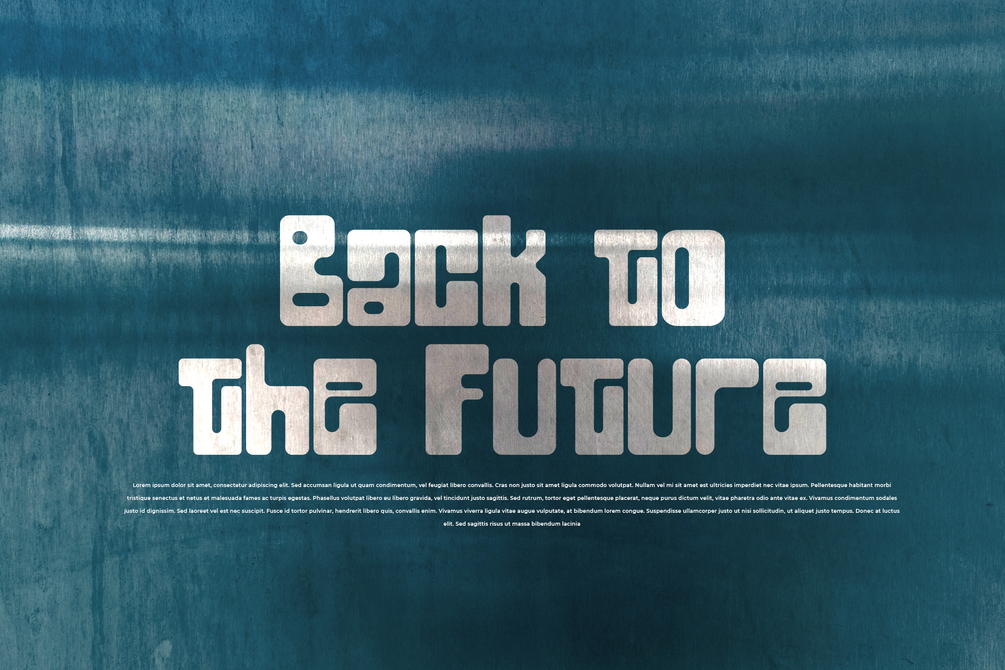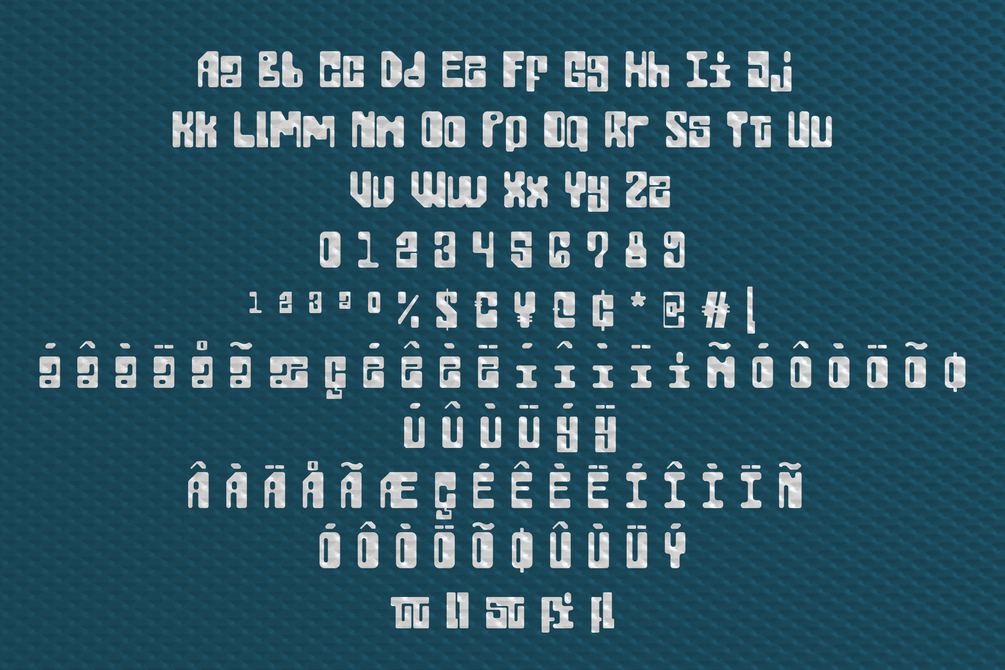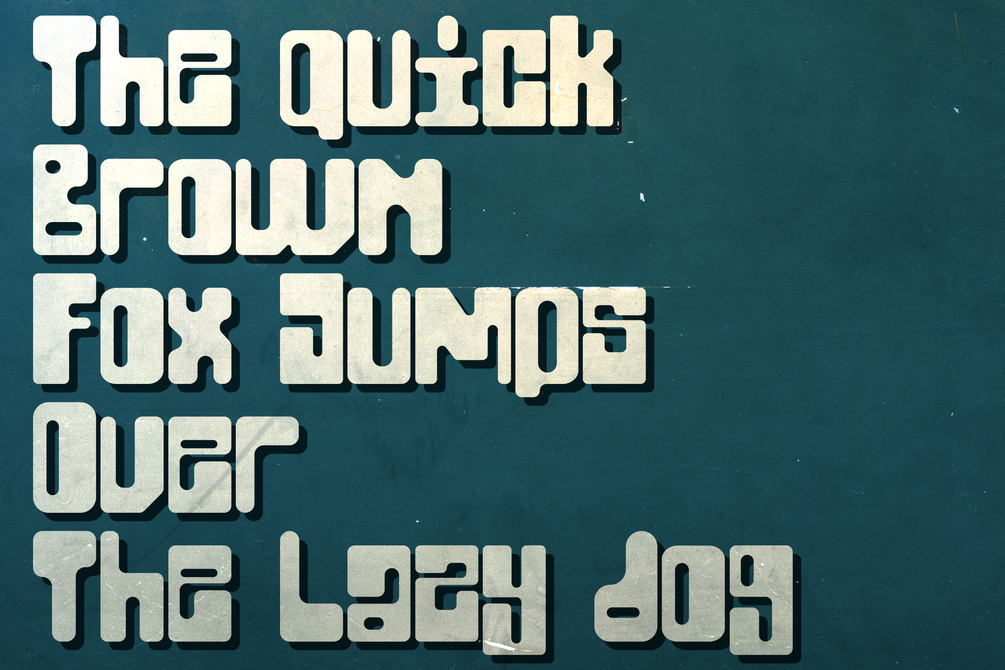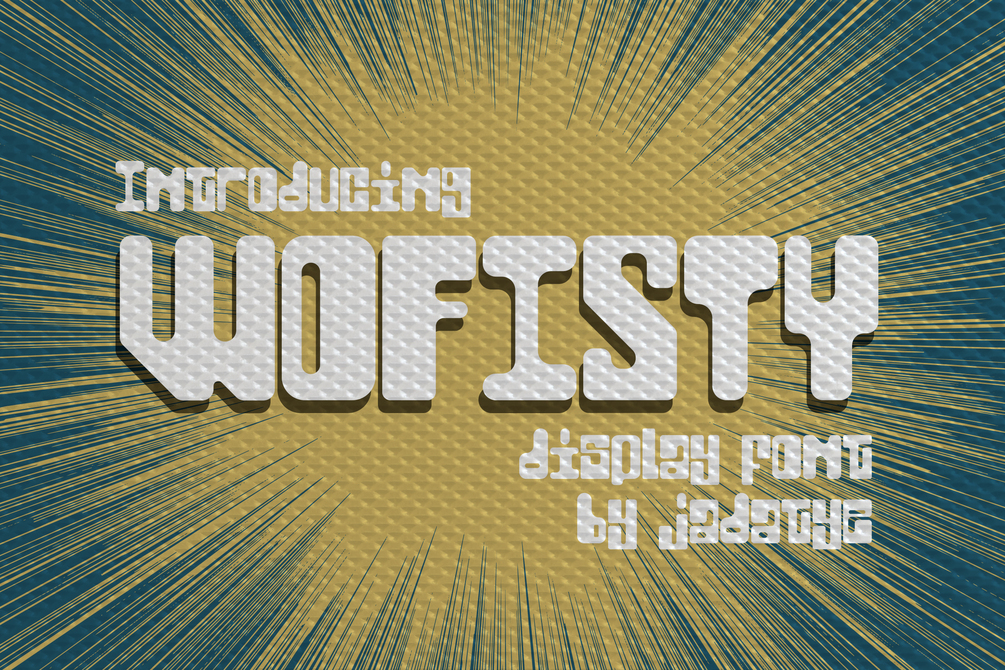
Wofisty Font
Wofisty is a display font that comes with Retro-Fun Style. suitable for tshirt, branding, social media, and so on. contains standard English letters, numbers, punctuation, and several accents that support multilingualism.